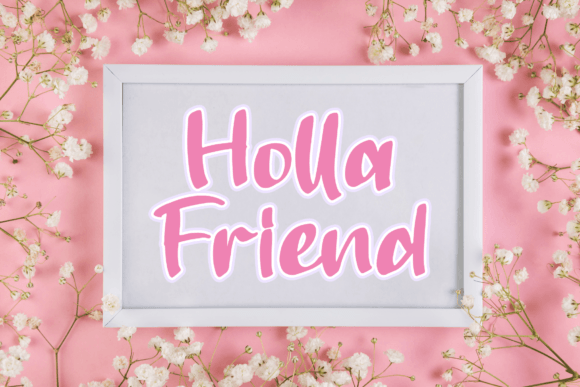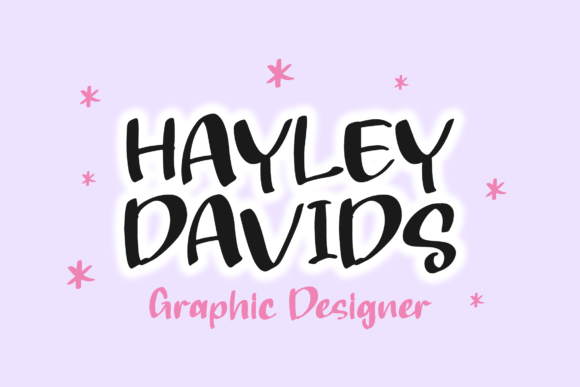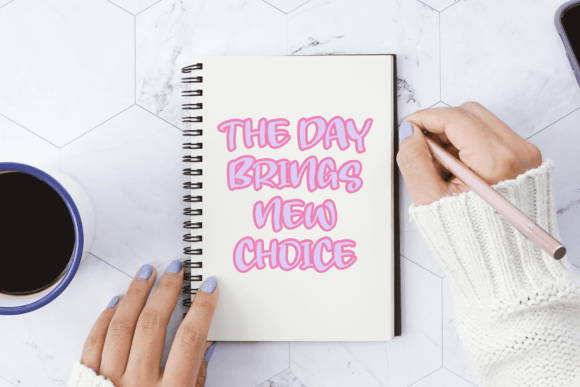
Introduction to Qrowy Magical Font
Have you ever found yourself in the middle of a creative project, frantically searching for the perfect font to bring it to life? The blank page stares back at you, taunting you with its emptiness. But what if I told you that there’s a solution to this design dilemma? Enter the enchanting Qrowy Magical Font, a quirky handwritten font that instantly adds a touch of magic to your creative project.
Key Features of Qrowy Magical Font
- High-quality, magical font with a whimsical design, perfect for creative projects.
- Unique characteristics include intricate details and ornate designs, adding a touch of magic to any creative project.
Honest Review: Qrowy Magical Font
What works well: ✨ The Qrowy Magical Font is a stunning addition to any design project. Its whimsical style and intricate details make it perfect for creating enchanting graphics, invitations, or even children’s book illustrations. The font is also highly customizable, allowing me to experiment with different colors and layouts to achieve the desired look.
Overall impression: Despite its limitations, I’m thoroughly impressed with the Qrowy Magical Font. Its unique style and versatility make it a valuable addition to my design resource arsenal. With a bit of creative experimentation, I’m confident that I can work around its limitations and produce some truly magical designs.
- High-quality design resource
- Whimsical and intricate details
- Customizable colors and layouts
For the most out of Qrowy Magical Font, use it for titles, headings, and emphasis in your design. Common use cases include fantasy-themed designs, children’s book illustrations, and magical advertising materials.